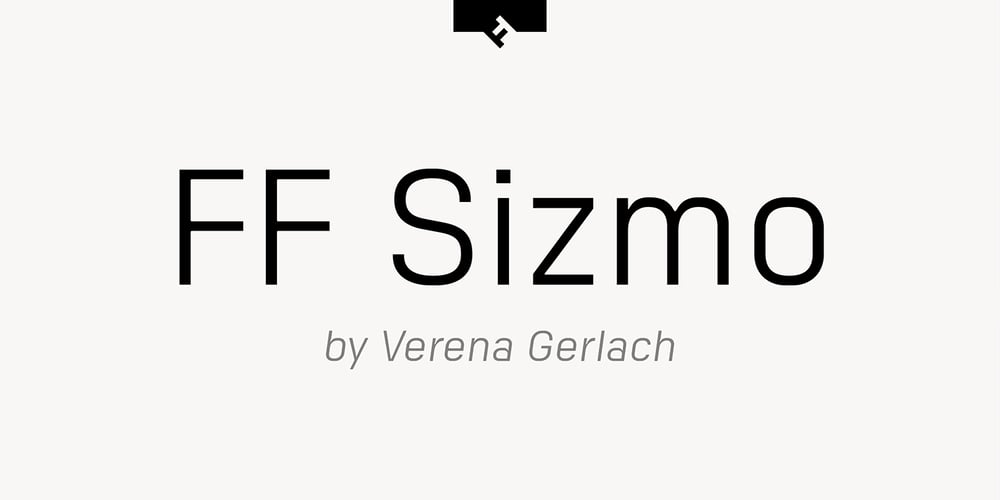
FF Sizmo Font Family was designed by Verena Gerlach and published by FontFont. FF Sizmo contains 15 styles and family package options. FF Sizmo™ is available in two flavors. One is an honest, industrial strength, somewhat condensed, sans serif family. The other builds on the first, and is a display design with horizontally connecting baseline strokes. The five weights of basic the FF Sizmo typefaces are ideal for print and digital projects. Character spacing is generous, counters are open and apertures are wide and clear. Banners, navigational links, sub heads, and short blocks of contextual copy are natural on-screen uses for the design. Print projects from branding to way-finding also fall easily into FF Sizmo’s range of applications. The “line” versions of FF Sizmo can be arresting stand-alone typefaces – or distinctive complements to the basic roman and italic designs. In either instance, the line designs make powerful statements in headlines, subheads, posters and cover art. OpenType® fonts automatically insert beginning, middle or ending line element characters into the copy. Drawn by Verena Gerlach, both designs were inspired by the same source, a commercial signage system that enabled quick and easy copy changes. “The idea for the typeface,” explains Gerlach, “is a housing complex index board, on which movable white plastic capital letters were fixed by a thick line to the wooden board. This line is an important part of the font’s appearance.”